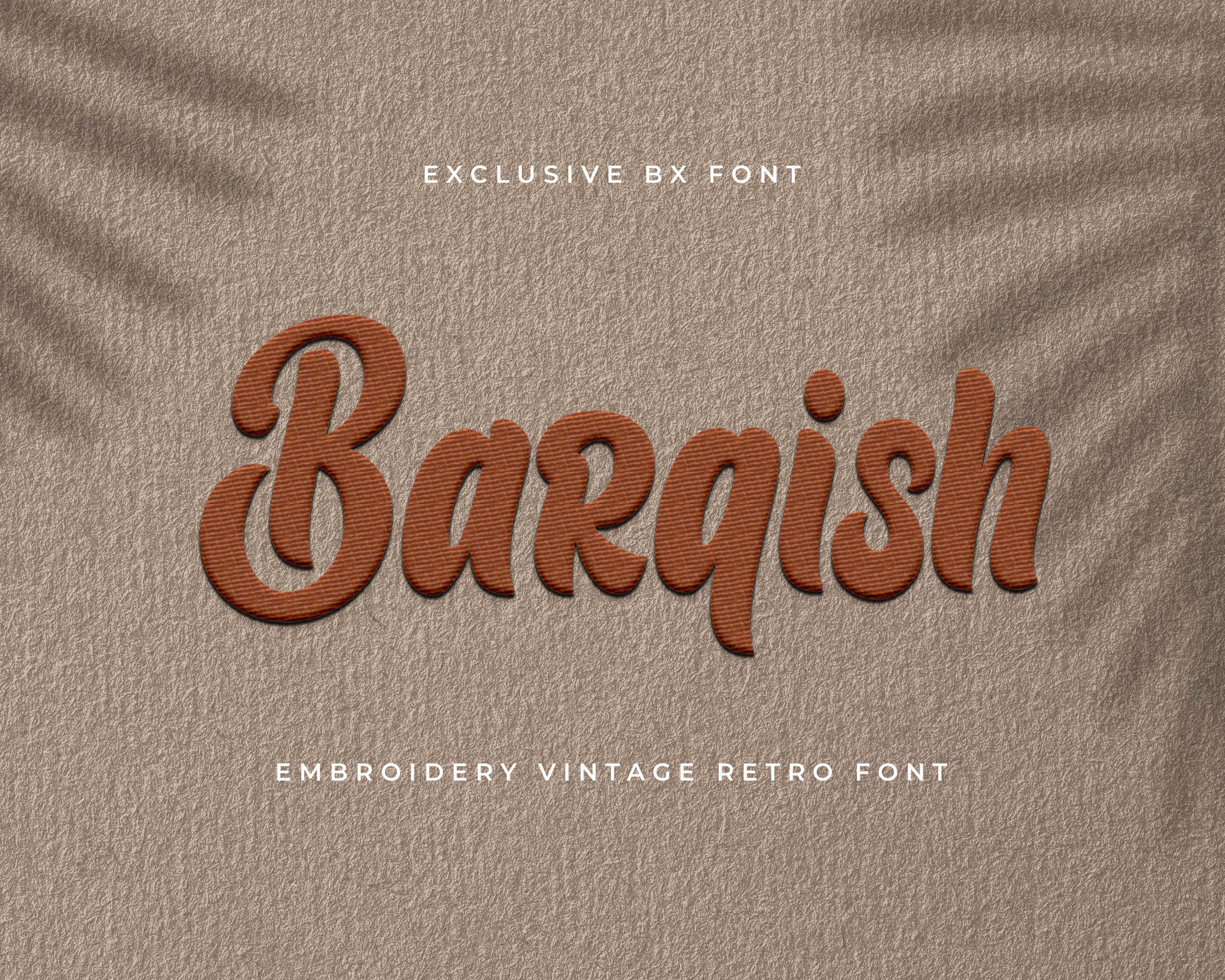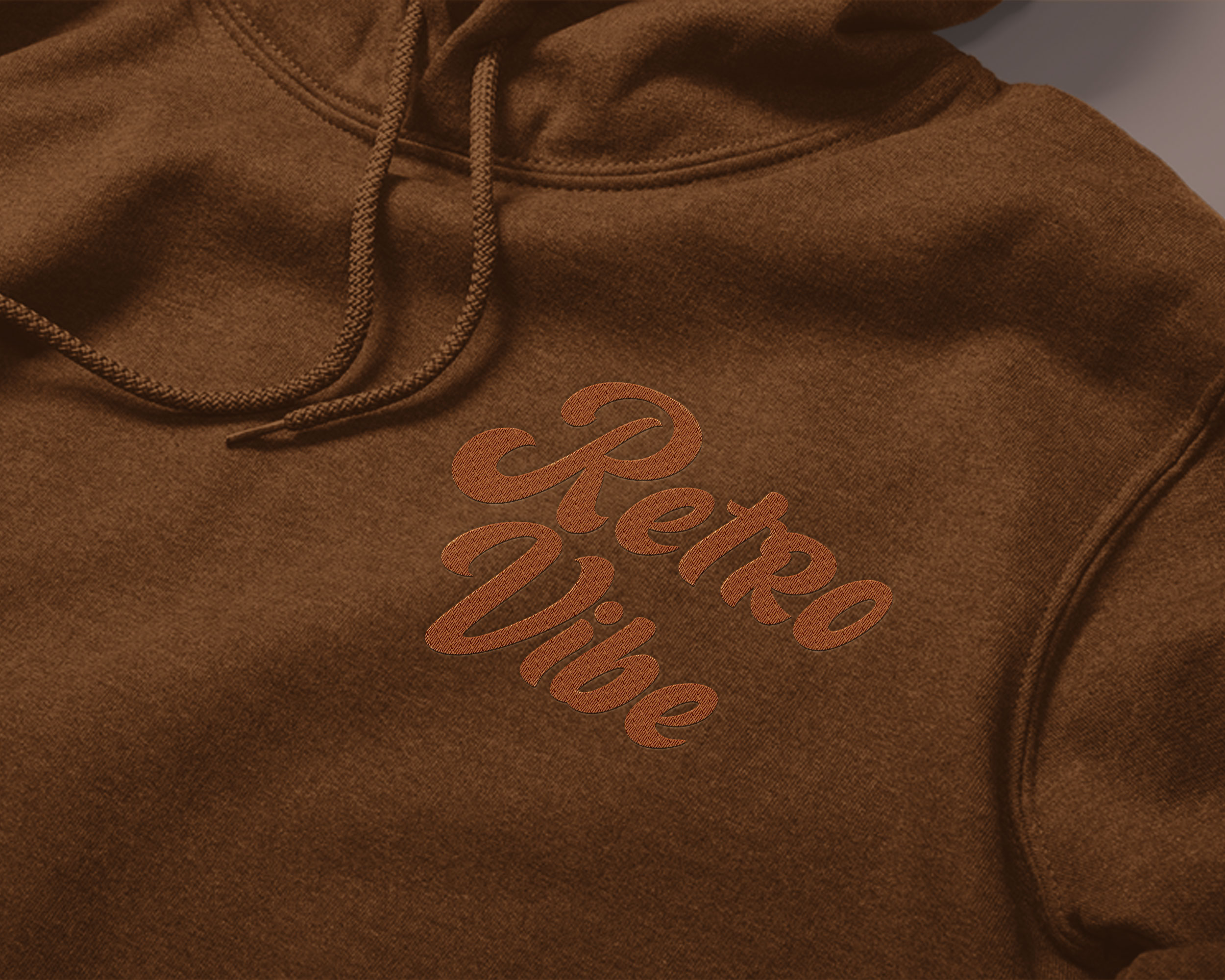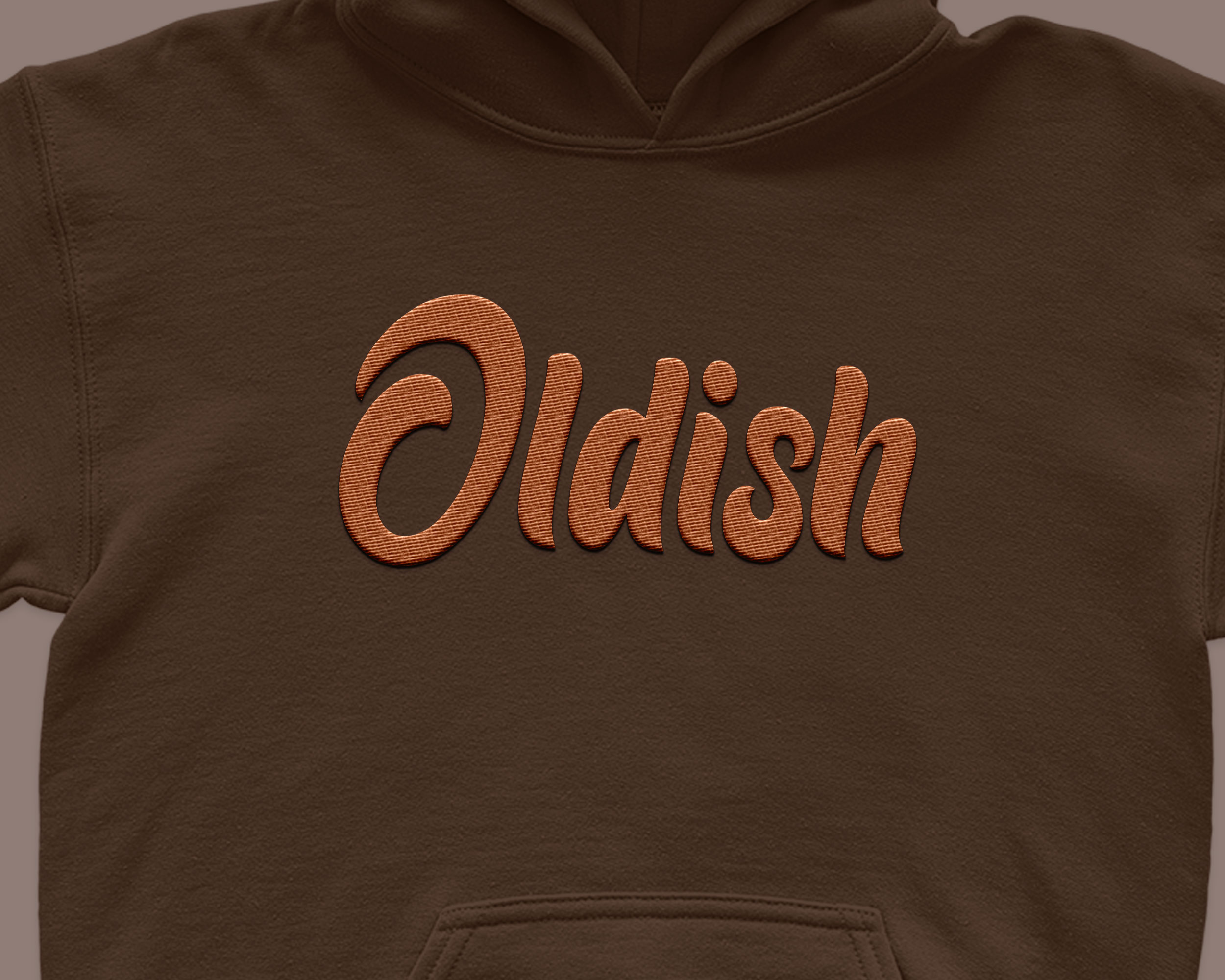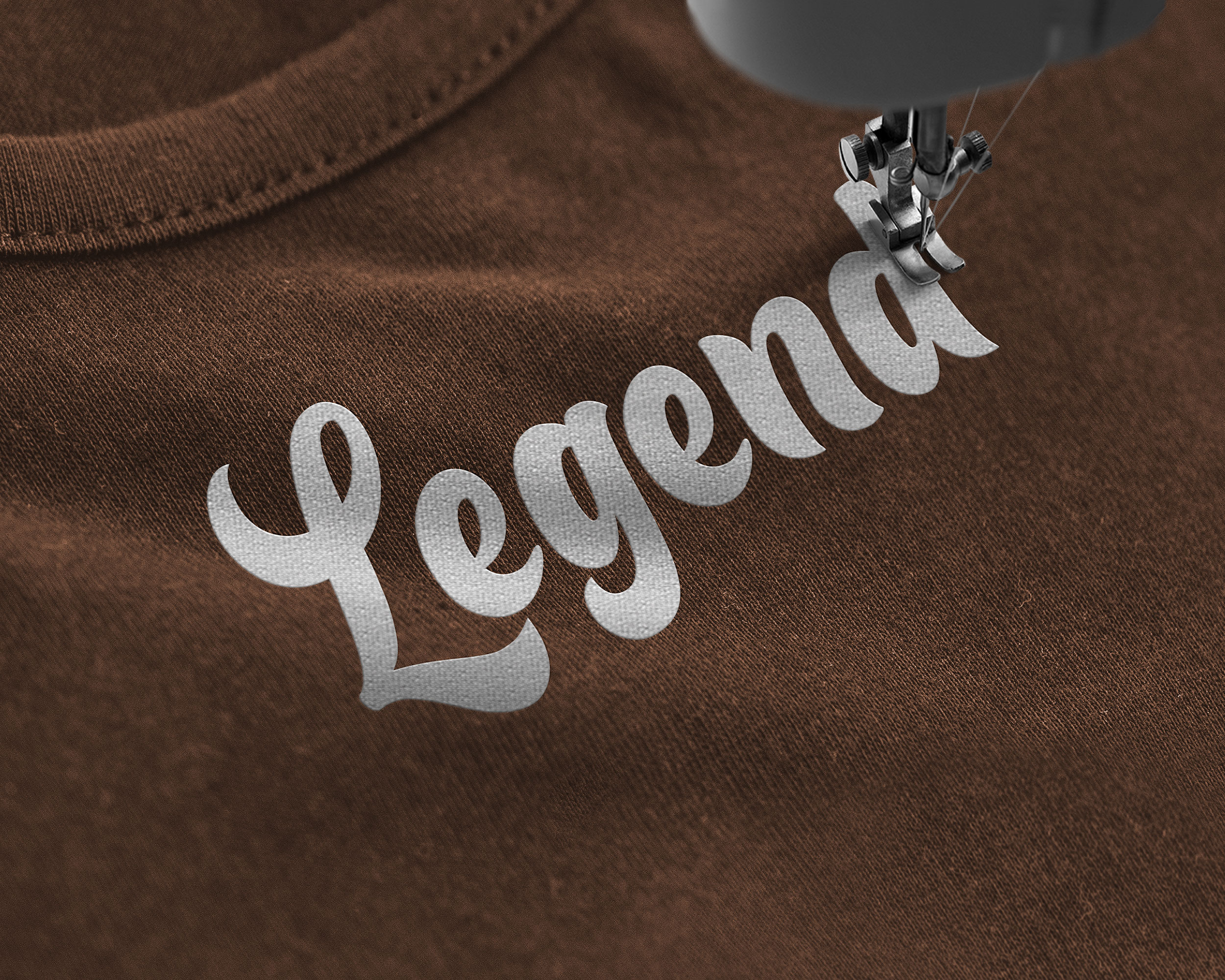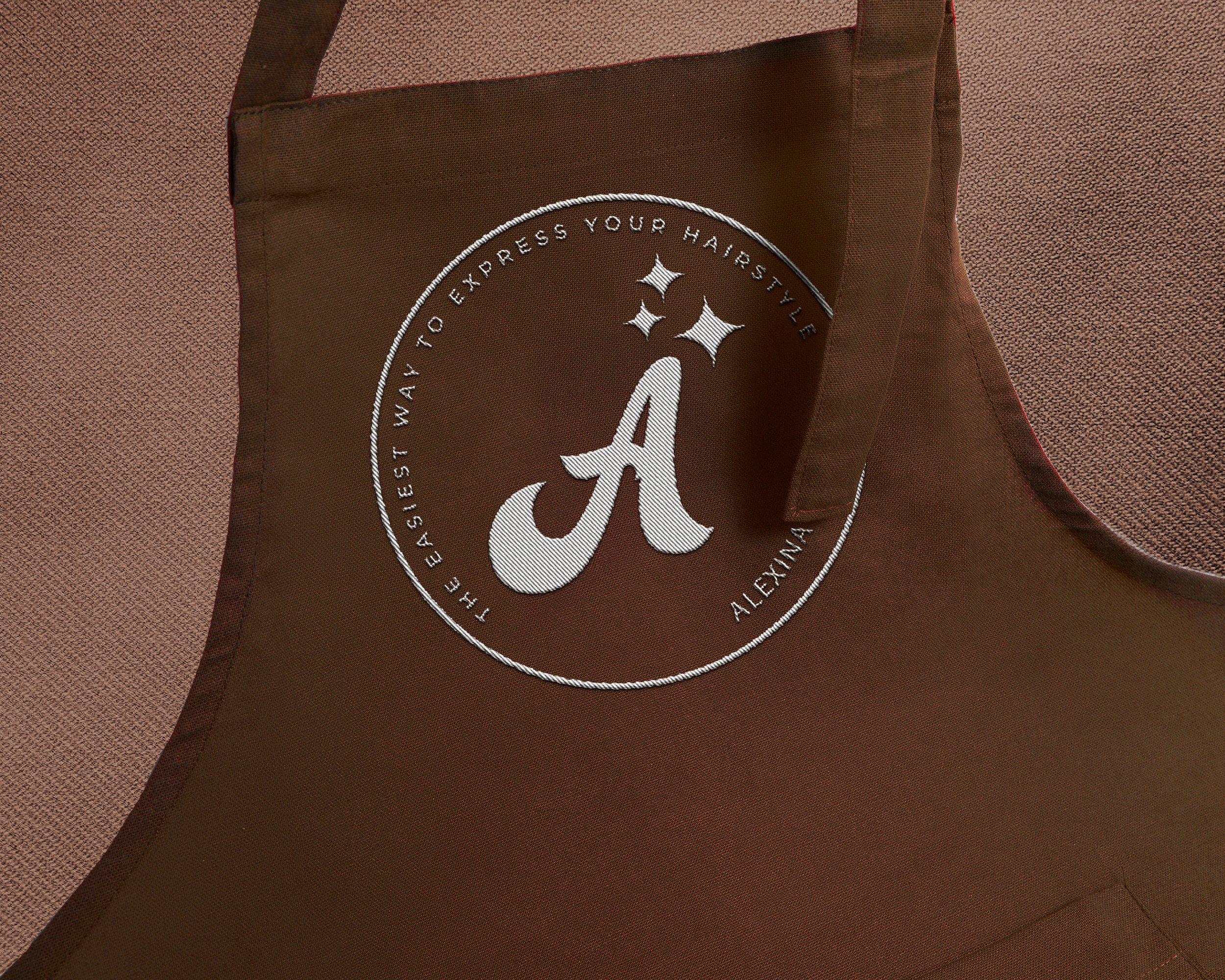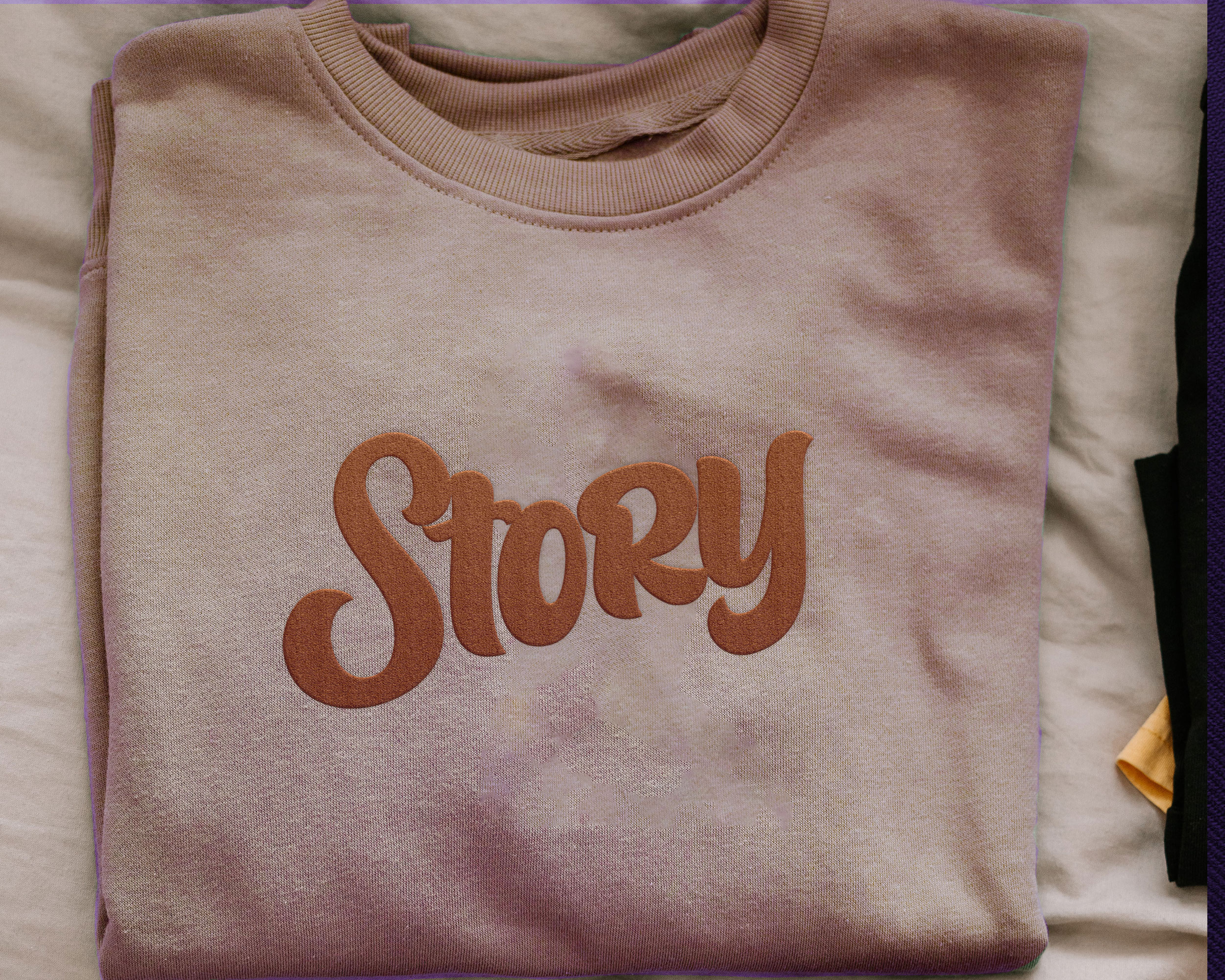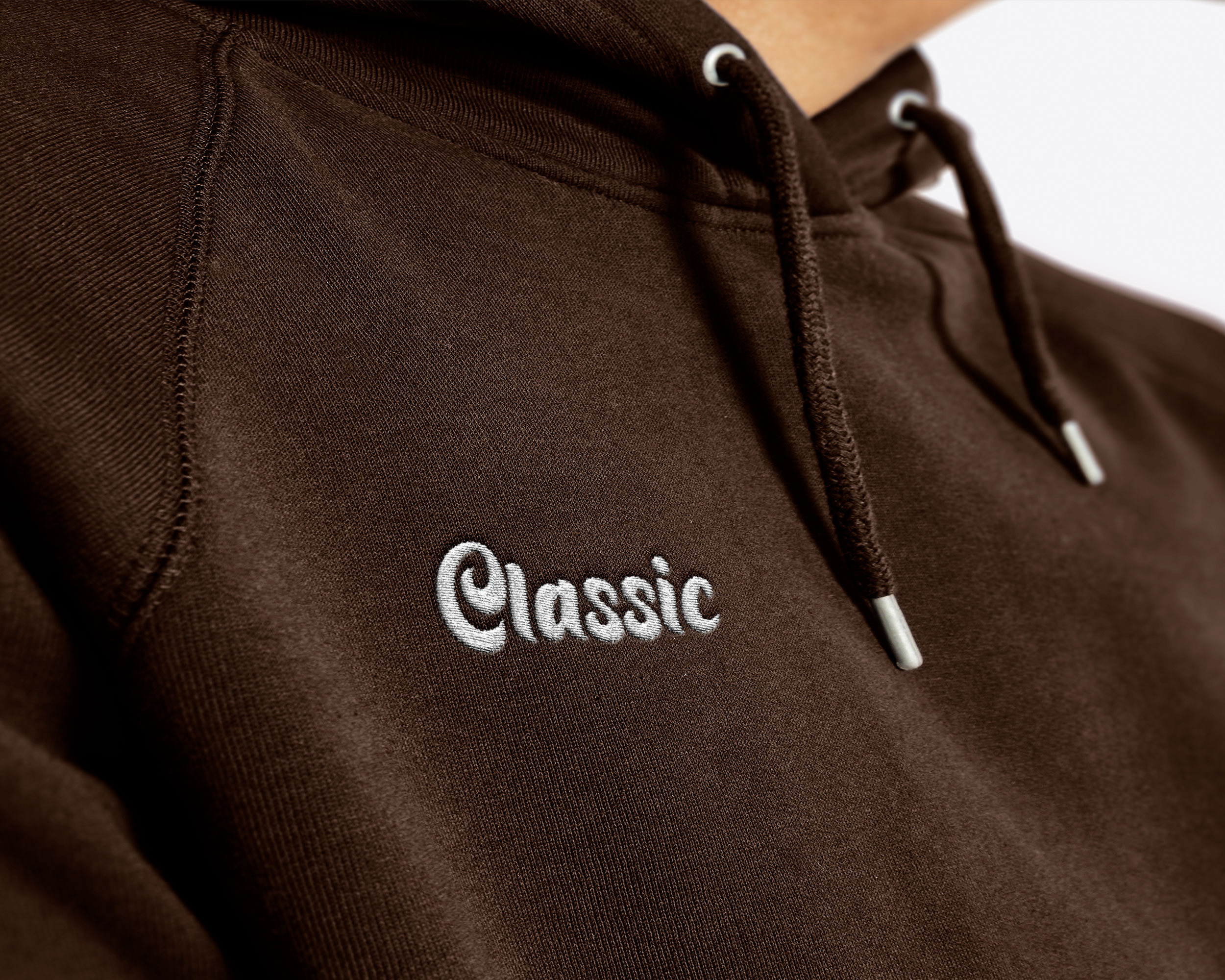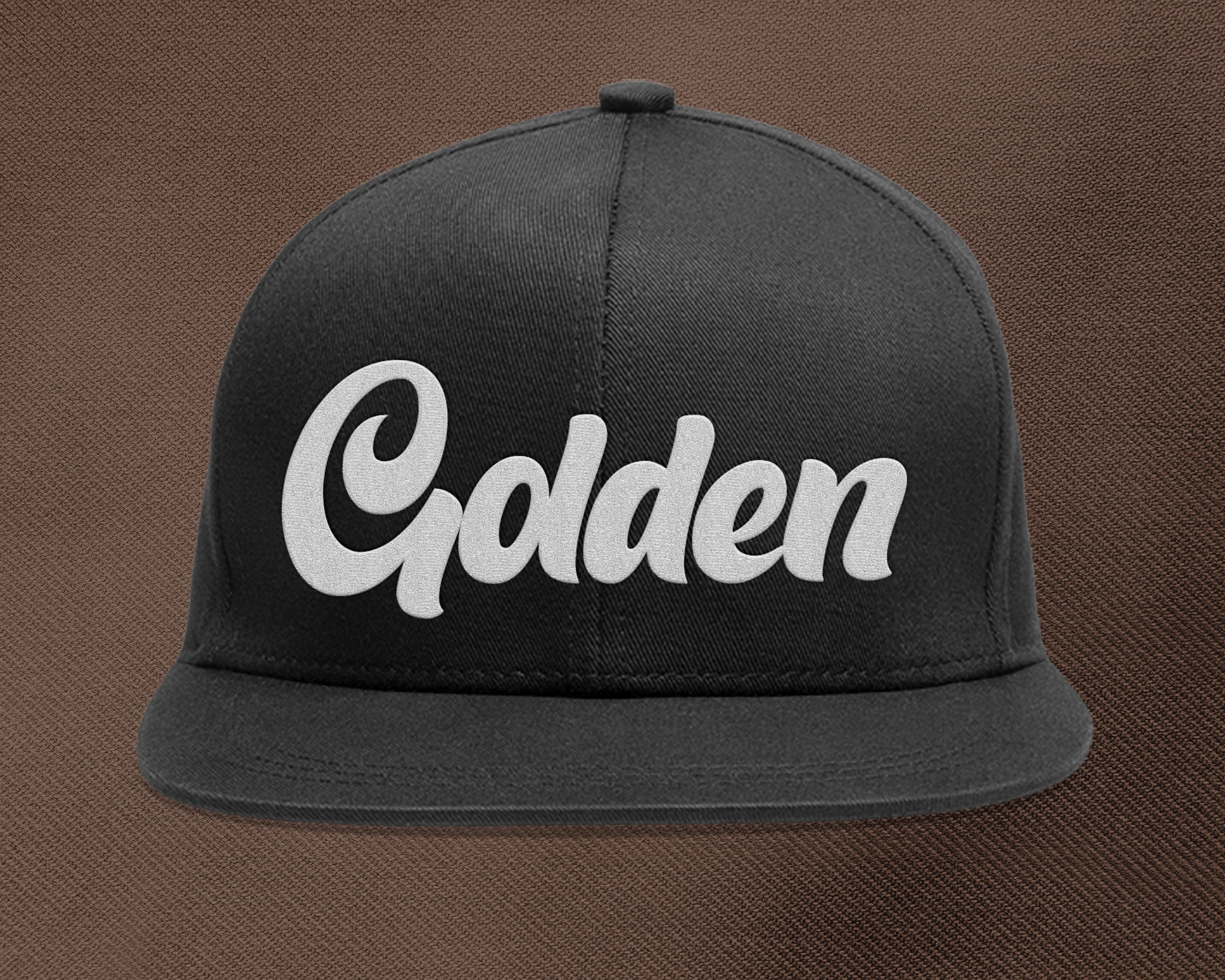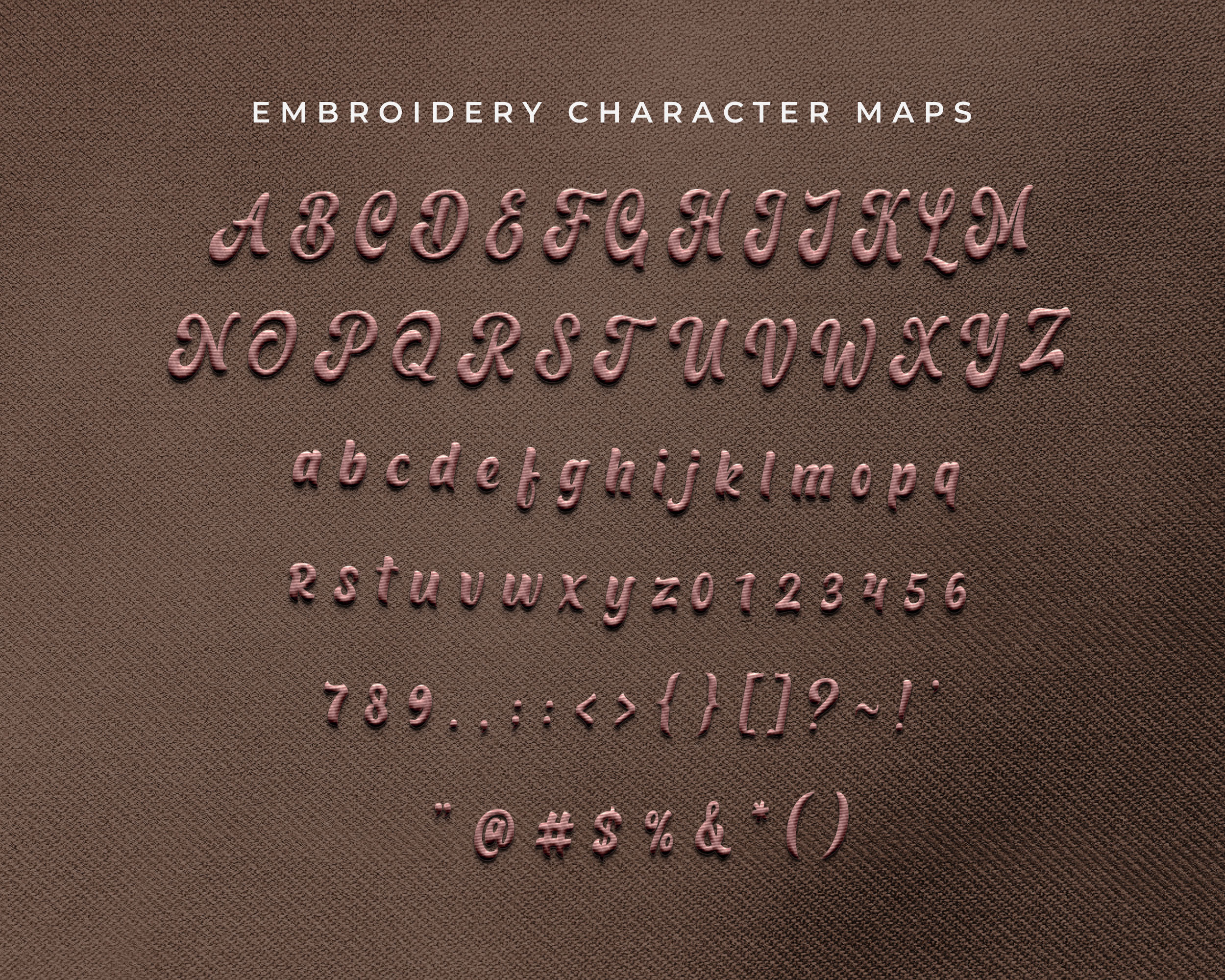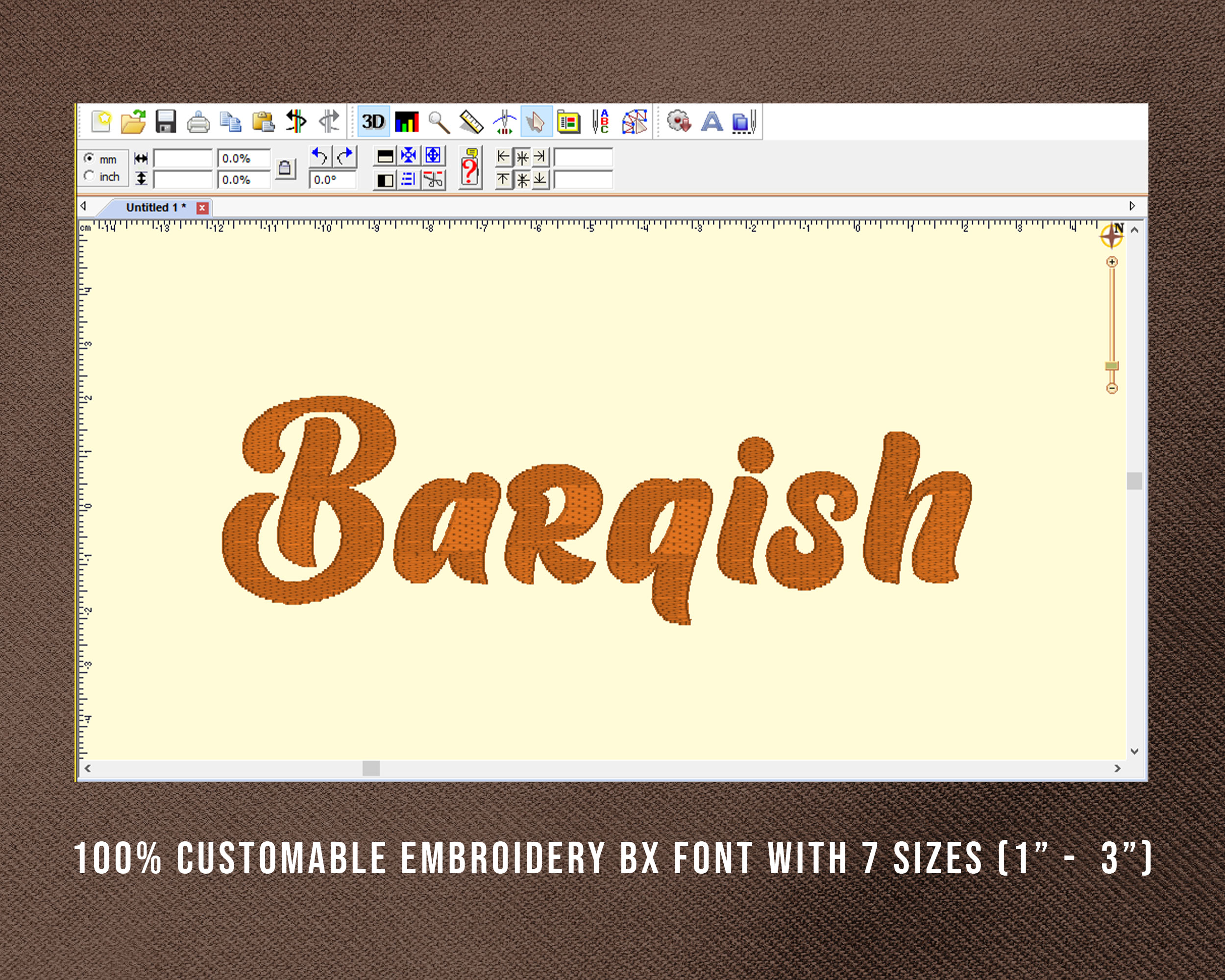
Barqish Embroidery Font is a new creation that is created as attractive as possible by adding a variation of the embroidery font. This font is here to provide another reference for those who are interested in using an embroidered font for many products. Barqish Embroidery Font belongs to illegible fonts. The appearance of this font is perfect when embroidered with small embroidery.
Barqish Embroidery Font is one of the simple embroidery fonts that are advisable to be combined with several products such as t-shirts, jackets, hoodies, and hats. This font can be bordered as wall hangings and hats made of cloth.
Barqish Embroidery Font creates a soft, simple, and straightforward impression of the product it features. This impression makes Barqish Embroidery Font the font that must be the top choice when choosing an embroidery font. It is beautiful when combined with the right colors and decorations.